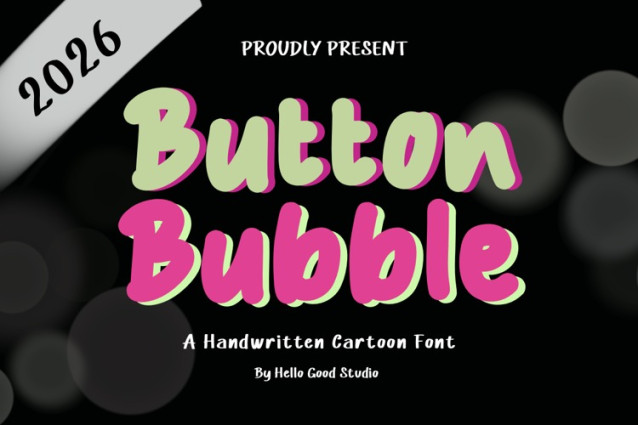
Button Bubble Font is a fun and eye-catching display font designed to bring joy and energy to your designs. With its rounded, bubbly shapes and thick strokes, this typeface instantly creates a friendly and approachable vibe. The soft curves and bold presence make it perfect for projects that need to stand out while still feeling warm and inviting.
Ideal for posters, children’s books, branding, social media graphics, packaging, and headlines, Button Bubble adds a touch of whimsy and creativity wherever it’s used. Its playful character pairs beautifully with bright colors and layered effects, making your text pop with a lively, modern look.
Whether you’re designing for fun, creativity, or bold visual impact, Button Bubble delivers a unique charm that’s hard to miss.